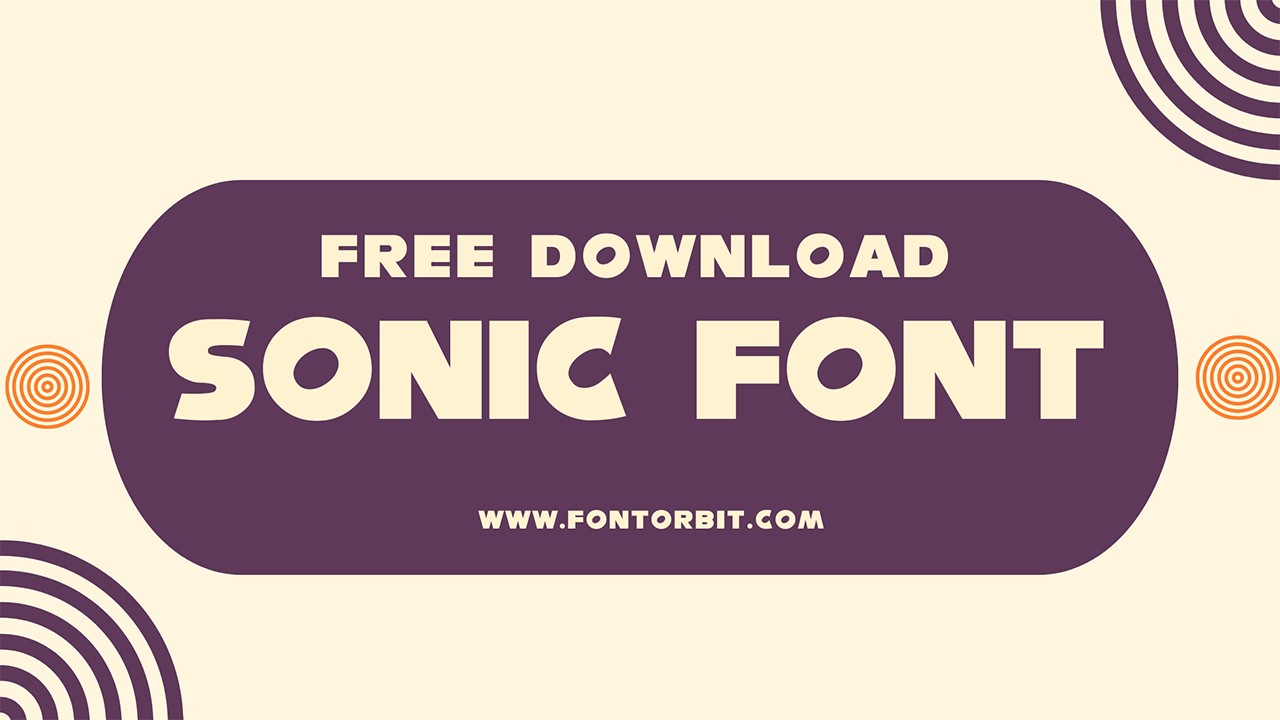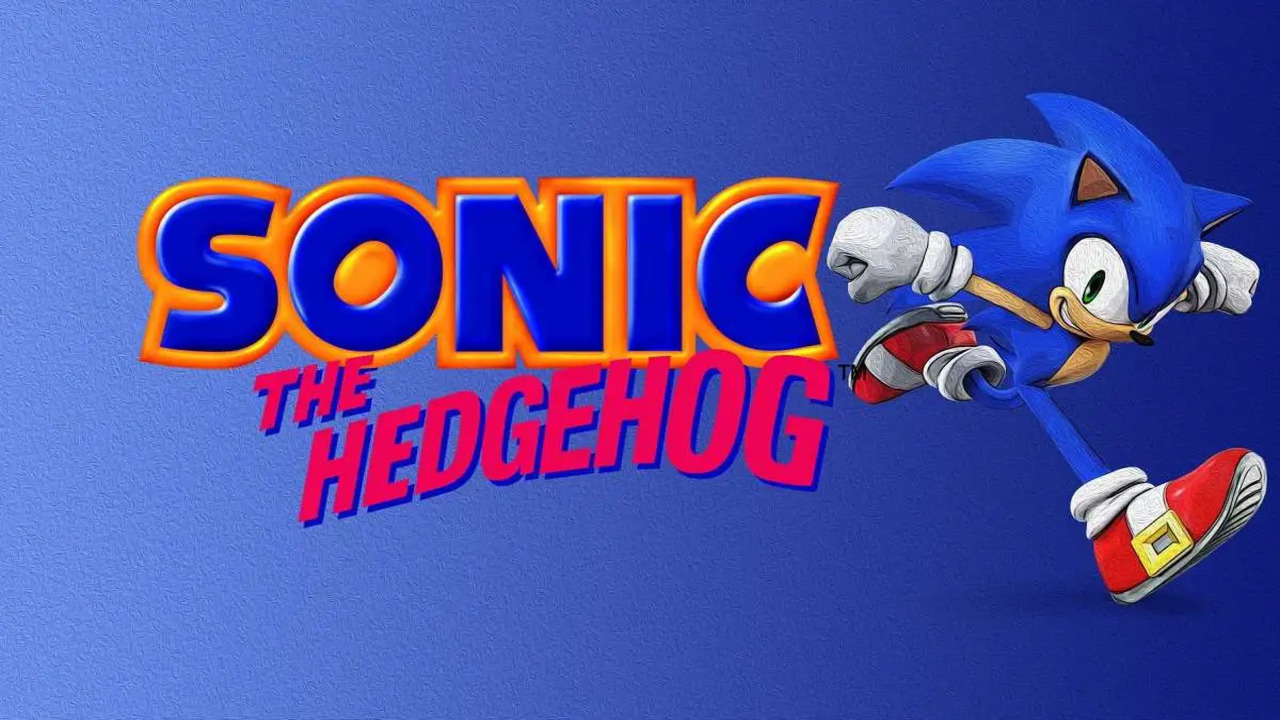
Meet Sonic Font, a dynamic typeface inspired by the iconic video game character Sonic the Hedgehog. This font pays homage to the fast-paced, energetic style of the classic 1980s arcade game.
Designed by ActSelect (Bitstream), Sonic Font captures the distinctive, sharp angles and bold lines that reflect Sonic’s adventurous spirit. Perfect for creating high-energy graphics, this font is ideal for game titles, logos, and any project that needs a retro, game-inspired touch.
Type Of Sonic Font (Font Family)
Sonic Font features a design based on the Sonic the Hedgehog logo and includes a distinctive set of styles. It belongs to the category of display typefaces known for their bold and eye-catching appearance. The Sonic Font family includes:
- Sonic Std Extra Bold
- Sonic Std Cut Thru Heavy
Sonic Font is perfect for adding an energetic touch to various designs with its bold and dynamic style. It excels in video game graphics, enhancing game titles and promotional materials with Sonic’s signature speed and excitement. The font also makes for standout merchandise, such as t-shirts and mugs, celebrating Sonic the Hedgehog.
Additionally, it’s ideal for event flyers related to gaming or retro themes, capturing the essence of classic arcade games with its distinctive design. Its bold, dynamic style is ideal for:
- Video Game Graphics
- Animated Posters
- Merchandise
- Event Flyers
The Sonic Font Found In Use
Sonic Font is widely used in designs that celebrate the energy and nostalgia of the Sonic the Hedgehog franchise. It can be seen in-game graphics, retro-themed merchandise, and promotional materials. The font’s distinctive style makes it a favorite among classic gaming fans.
Free alternatives to Sonic Font offer a similarly energetic and retro style. Consider the following options for a comparable look:
Sonic Font is a vibrant typeface that brings a touch of retro gaming charm to any design. Ideal for video game graphics, animated posters, event flyers, and merchandise, this font adds a dynamic, nostalgic vibe to your projects. Whether celebrating classic arcade games or creating new designs with a retro flair, Sonic Font is an excellent choice.
1.What Are The Different Weights And Styles Available For The Sonic Font?
The Sonic Font family includes:
- Sonic Std Extra Bold
- Sonic Std Cut Thru Heavy
These weights emphasize the bold and impactful nature of the font, suitable for various design applications.
2.What Are Some Popular Sonic Font Styles?
Some popular styles of Sonic Font include Nise Sega Sonic Font & Sonic Surge Font. These styles capture the distinctive look of the Sonic the Hedgehog branding and are commonly used in gaming-related designs.
3.What Are The Characteristics Of Sonic Font?
Sonic Font is a pixel-inspired typeface with sharp angles and bold lines, reflecting the dynamic, high-energy style of Sonic the Hedgehog.
4.What Are The Alternatives To Sonic Font?
Consider fonts like Nise Sega Sonic Font, Sonic Surge Font, or Univers Font for similar energetic, retro styles.
5.What Styles Are Popular In Sonic Fonts?
Popular styles in Sonic Fonts feature pixelated, retro designs with dynamic, bold lines that evoke the classic look of early arcade games and digital displays.